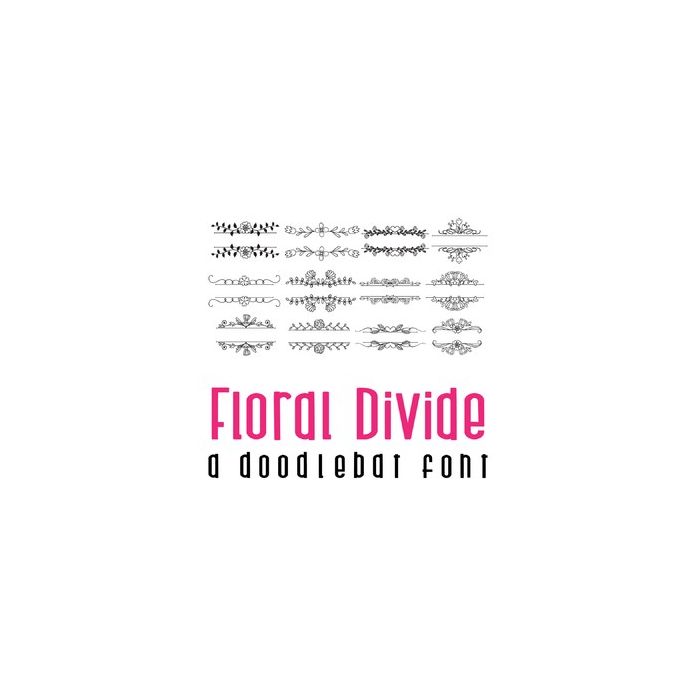
floral divide doodlebat font
This fun doodlebat font features 26 floral borders. Perfect for cards, gifts, decor, crafts, scrap book pages, planner stickers and more!